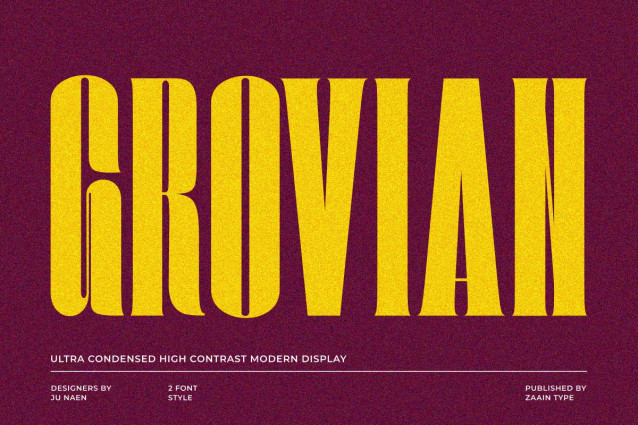
Grovian Font is a condensed serif font designed with a balance of firmness and elegance. With its slender proportions and sharp serif details, Grovian delivers a strong visual character without sacrificing readability. Each letter is crafted with high precision, creating a modern look while retaining a classic touch.
Grovian is perfect for magazine headlines, luxury branding, fashion editorials, posters, and any typographic display that requires a classy impression in limited space. Its compact vertical structure makes the text appear tall, elegant, and authoritative.
With its refined aesthetics and stylish form, Grovian becomes an ideal choice for designers who want a condensed serif with a bold, professional, and captivating character